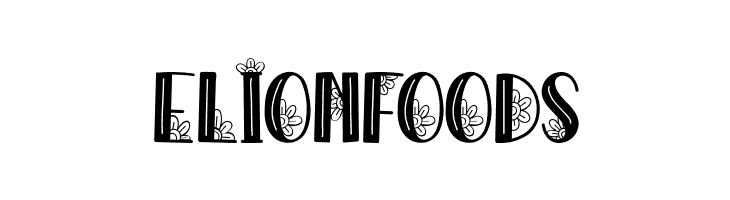
A decorative font with intricate floral patterns within bold uppercase letters.
A bold, decorative font with floral embellishments on uppercase letters.